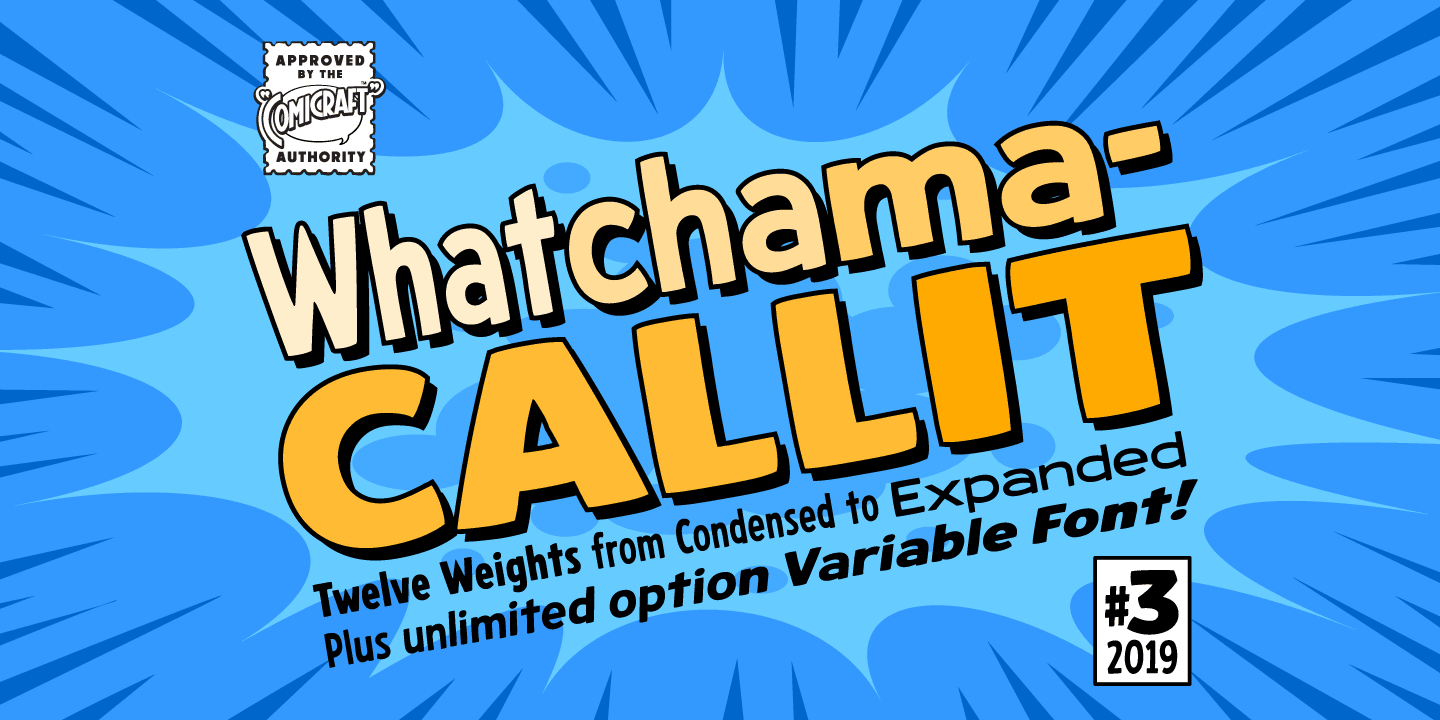
The Whatchamacallit Font is perfect for quirky brand identities, playful children's book designs, fun party invitations, creative toy packaging, whimsical greeting cards, casual restaurant menus, comedy show posters, and lighthearted marketing campaigns. This delightful typeface excels in projects for entertainment companies, children's brands, comedy clubs, novelty gift shops, and businesses seeking to inject humor, personality, and playful charm into their visual communications.
What makes the Whatchamacallit Font exciting is its wonderfully unpredictable character that captures the essence of spontaneous creativity and playful communication. The font features deliberately quirky letterforms with unexpected details and charming irregularities that create an immediate sense of fun and approachability. Its whimsical nature and conversational tone make it perfect for brands wanting to establish friendly, memorable connections with audiences who appreciate humor and originality. The font's playful personality transforms ordinary messages into delightfully engaging conversations.
The Whatchamacallit Font family includes playfully-designed variations: Light, Regular, Bold, Bouncy, Wobbly, and Extra Fun versions. Each style maintains the font's quirky character while offering different levels of playfulness and visual energy for diverse entertainment applications. The family also features silly symbols, fun dingbats, and whimsical ornaments that enhance creative and child-friendly design projects.
Whether you're developing fun brand identities, creating playful marketing materials, or designing entertaining promotional campaigns, the Whatchamacallit Font Free Download provides the ultimate solution for projects requiring quirky, approachable typography. This remarkable typeface brings genuine personality and humor to design work, making it an essential resource for designers who want to create memorable, smile-inducing visual experiences that connect with audiences through joy and creativity.